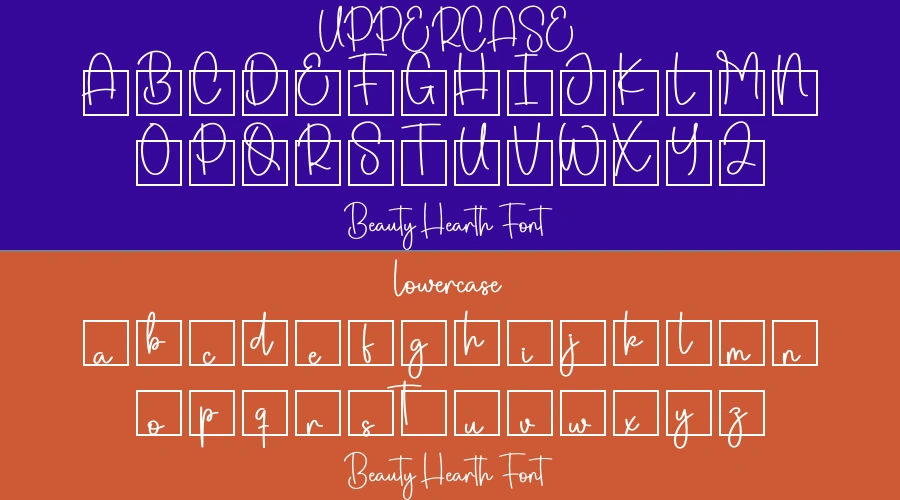
About Beauty Hearth Font
When typographic excellence matters most, Beauty Hearth Font delivers through its thoughtful blend of organic curves and human connection. Specially crafted for formal announcements, it offers the longevity and sophistication required for sophisticated design work. Every detail serves a purpose.
The character set showcases thoughtful details like flourishes alongside functional discretionary ligatures. This proves especially valuable in ceremonial texts, where purchase influence directly influences results. Particular attention was paid to aperture size and emotional resonance during development.
Beauty Hearth Font |